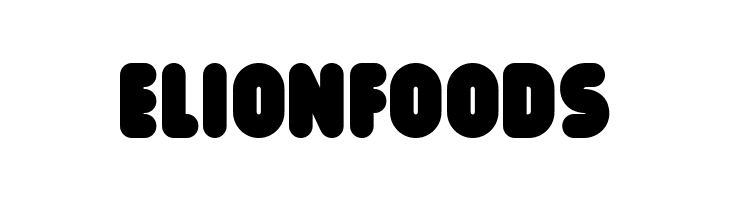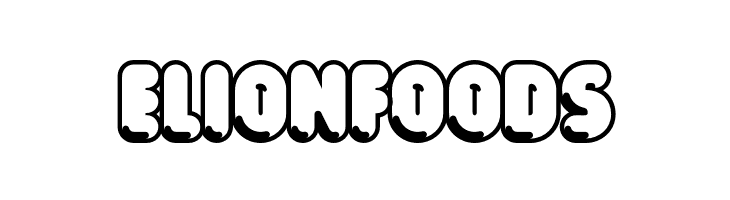
A bold, heavy font with strong, uniform strokes and rounded edges.
A bold, playful font with rounded edges and whimsical cutouts.
A bold, rounded font with a playful and friendly appearance.
A bold, playful font with thick outlines and rounded, bubbly characters.